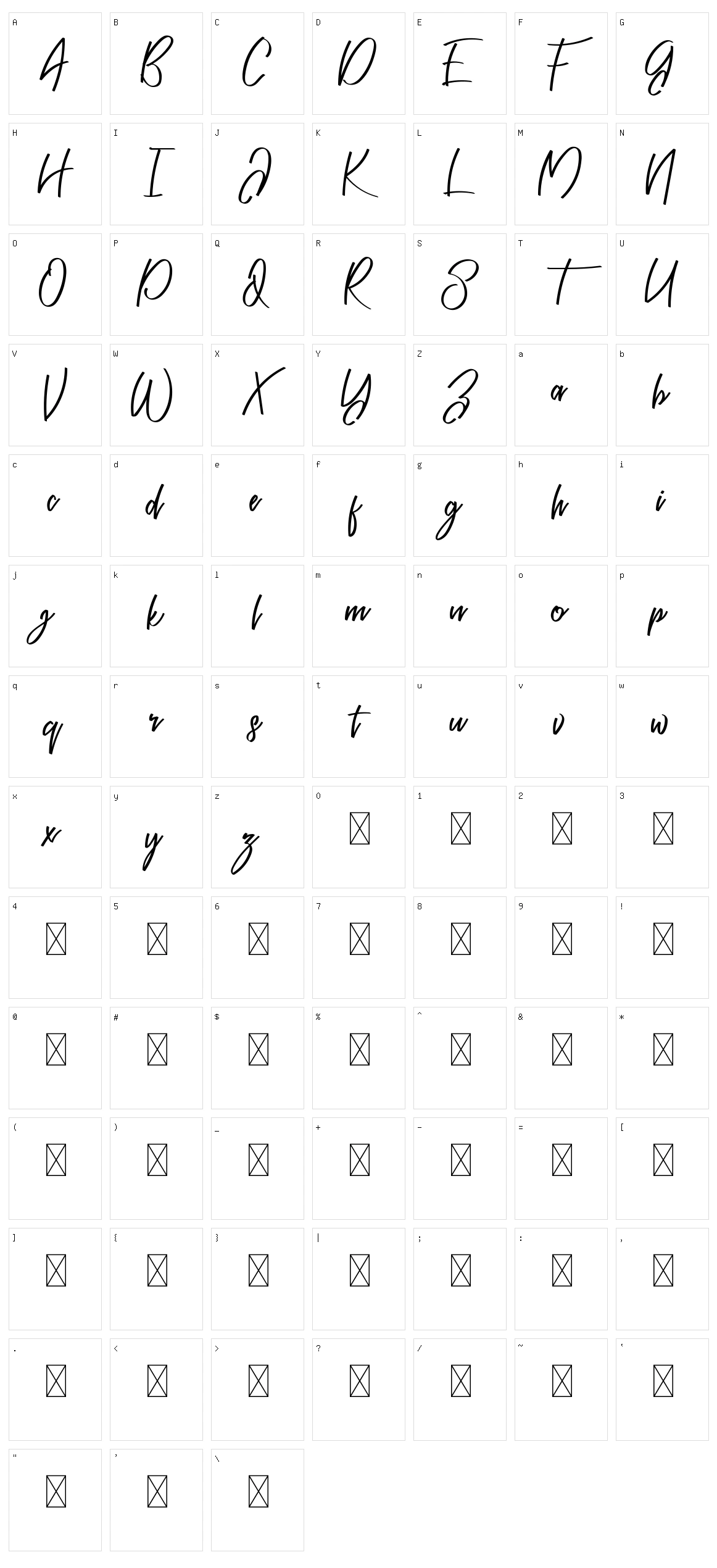
The free font Nadheva is carefully designed by Edric Studio, showcasing a thoughtful balance of creativity and usability and falls under the Script font style. When you download the ZIP file, it contains only 10.3 KB of font files, making it lightweight and quick to download. Please review the license details below to understand permitted usage and distribution rights. If license information is not available, we recommend using this font for personal projects only or contacting the author directly for commercial usage permissions.